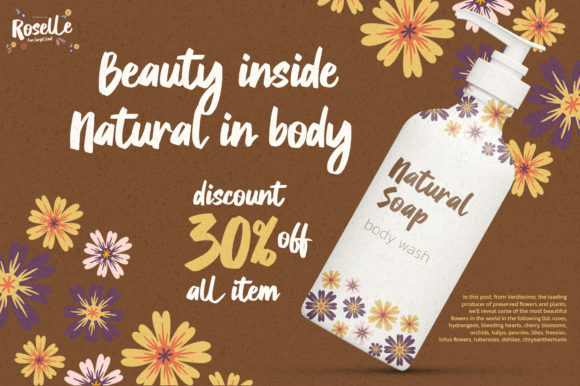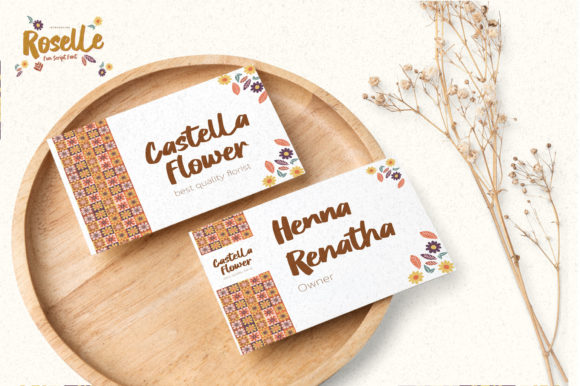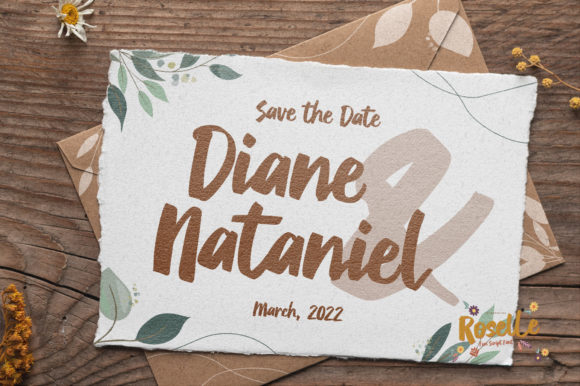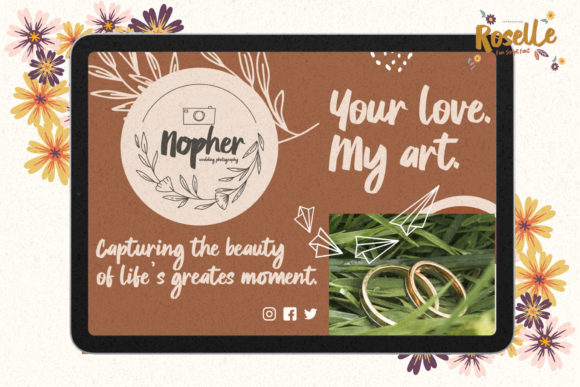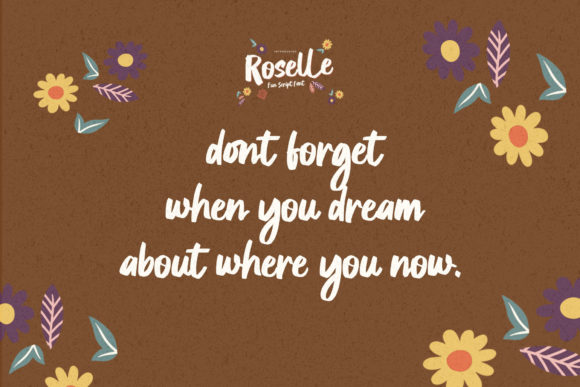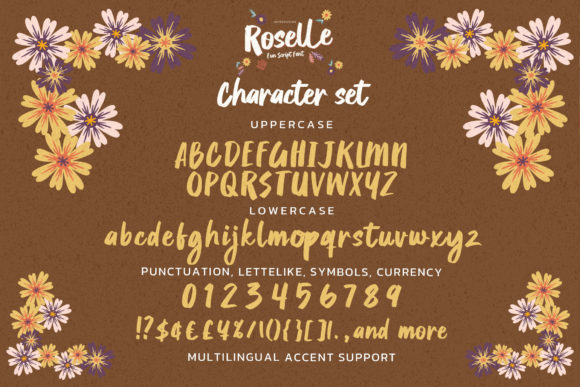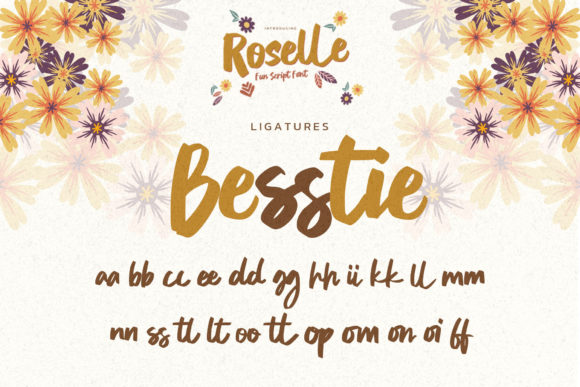
Roselle Font
About Roselle Font
Roselle is a captivating and stylish paint brushed handwritten font that effortlessly captures a sense of modern chic. Its trendy and contemporary design makes it a versatile choice for a wide range of branding projects, ensuring that your designs stand out with a unique and captivating flair.
When it comes to logos, Roselle can infuse your brand identity with a fresh and vibrant energy. Its fluid strokes and playful letterforms create a dynamic visual appeal that can help your logo make a lasting impression on your target audience. Whether your brand is edgy and bold or elegant and refined, Roselle can adapt to your style and add a touch of trendy sophistication.
The font’s artistic brush strokes lend themselves beautifully to t-shirt printing and sport designs. Whether you’re creating athletic apparel or casual wear, Roselle can bring a contemporary and eye-catching look to your designs, making them resonate with your target audience.
Roselle’s versatility extends to various other contexts as well. Its stylish and casual charm makes it a great choice for social media graphics, website design, and promotional materials. By incorporating Roselle into your design projects, you can infuse them with a sense of modernity and create a cohesive and captivating visual identity.
In essence, Roselle is more than just a font – it’s a creative tool that empowers you to add a touch of chic and trendiness to your branding projects. With its ability to seamlessly adapt to different design contexts, Roselle opens up a world of possibilities for creating standout visuals that leave a lasting impact. Whether you’re aiming for a casual, sporty, or fashionable vibe, Roselle is ready to transform your ideas into stunning and memorable designs.